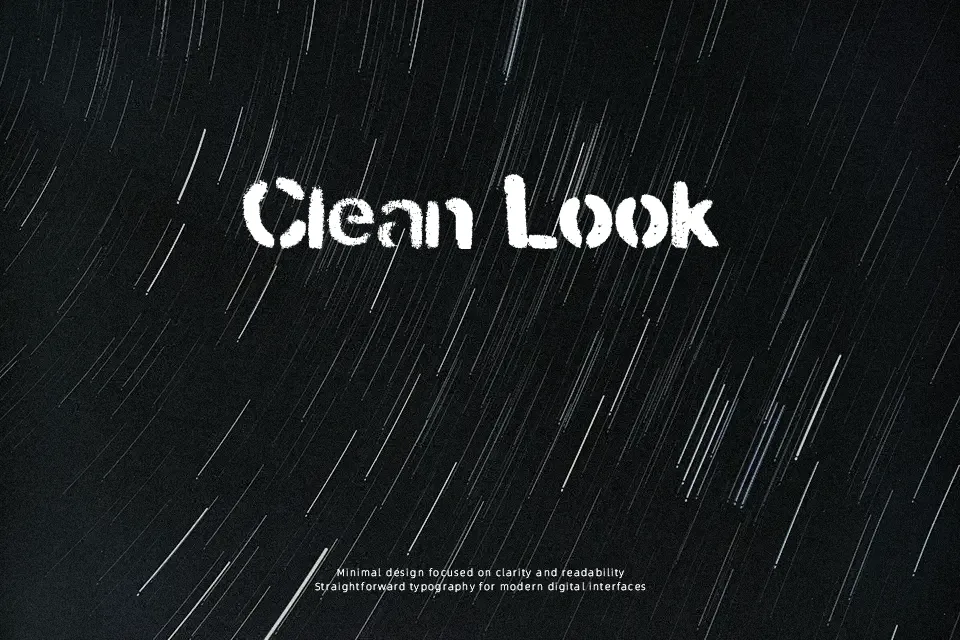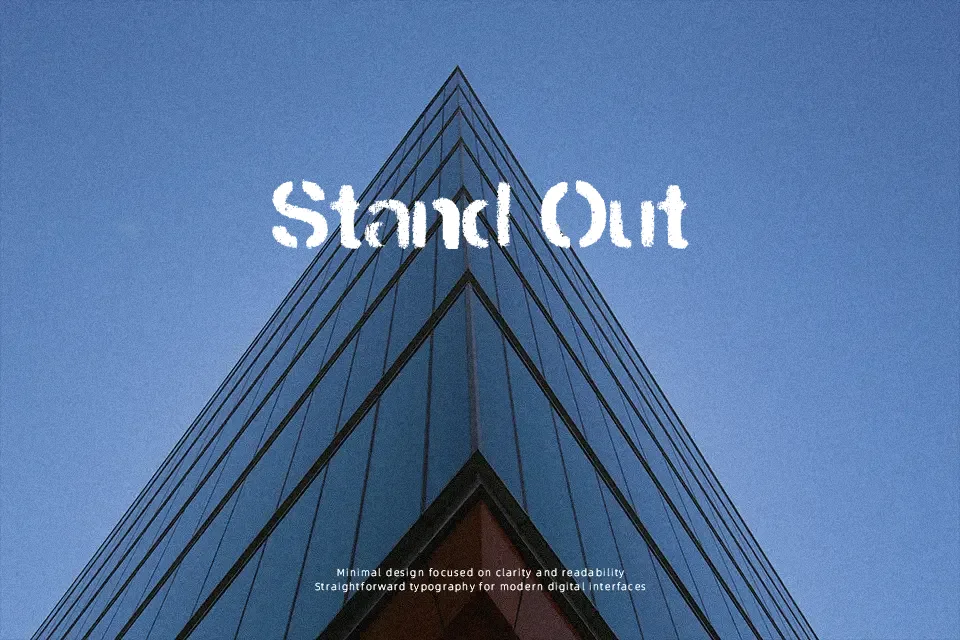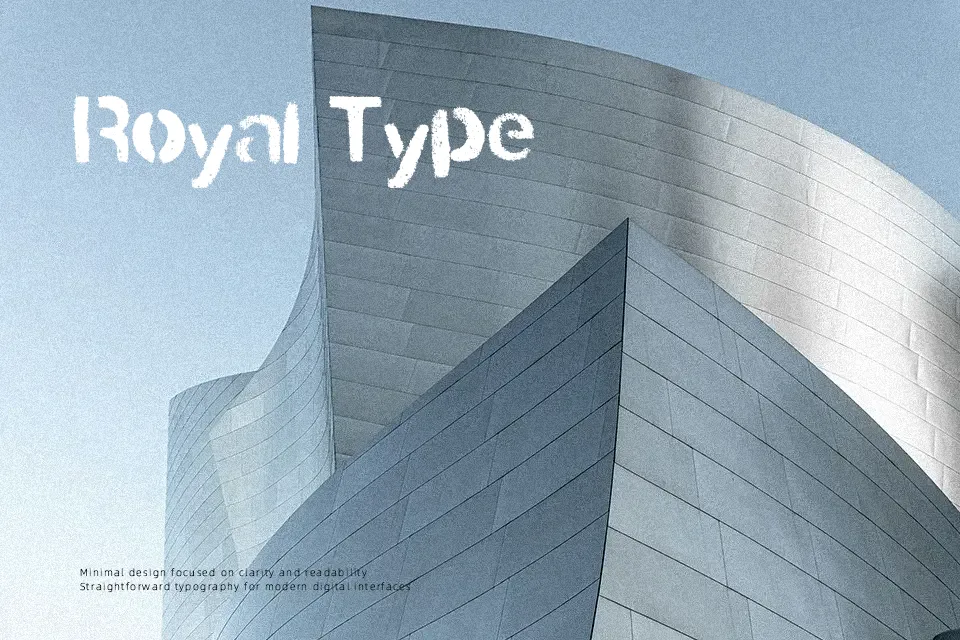
Urbana Font
Urbana Font introduces a gritty, military-inspired stencil look distinguished by heavy stroke weights and textured cuts through each letterform. The uppercase characters maintain uniform proportions with deliberate breaks across vertical stems and rounded bowls, creating strong rhythm in display settings. Compact spacing pairs with high visual contrast against light backgrounds, making the letterforms immediately recognizable from a distance. The typeface excels in outdoor event banners, apparel branding, and poster headlines where an industrial aesthetic is needed. However, the irregular silhouettes and fragmented contours become less effective at smaller sizes, making the font unsuitable for dense body text or extended editorial reading.
Best For: military surplus packaging,tactical poster headlines,streetwear apparel graphics,action game titles
Not Ideal For: continuous body text,mobile interface labels,formal wedding stationery,financial reports
Perfect for branding, gaming, and headline, with a bold and decorative style.